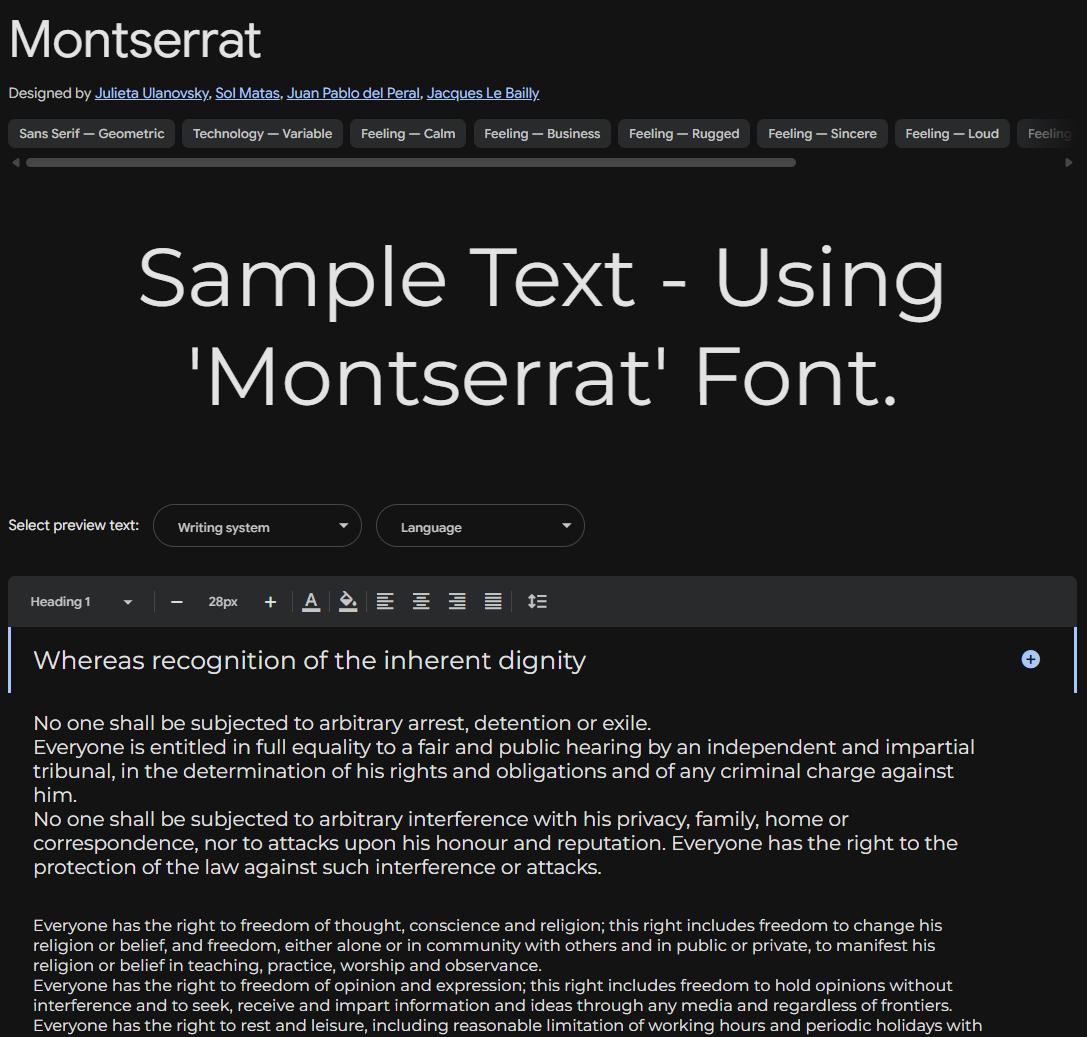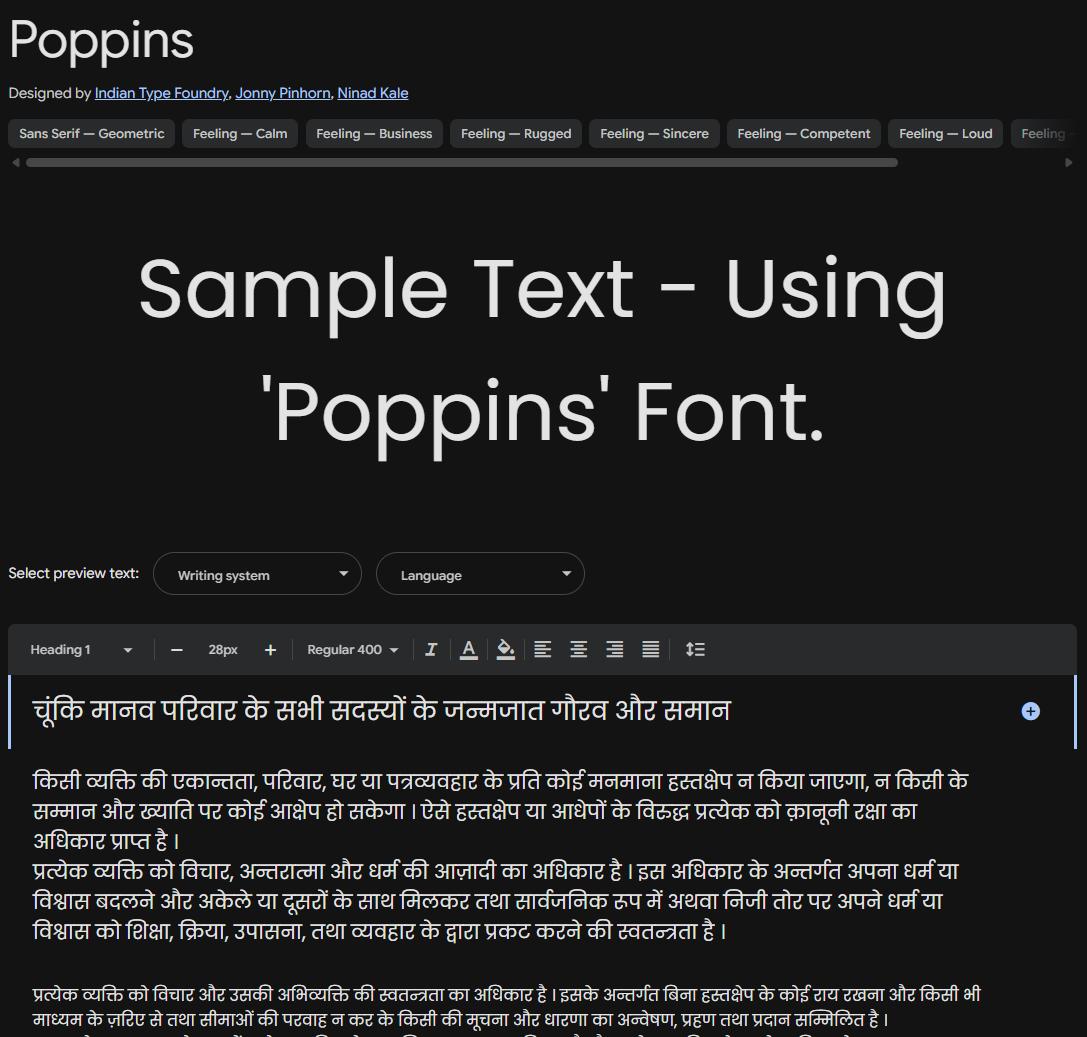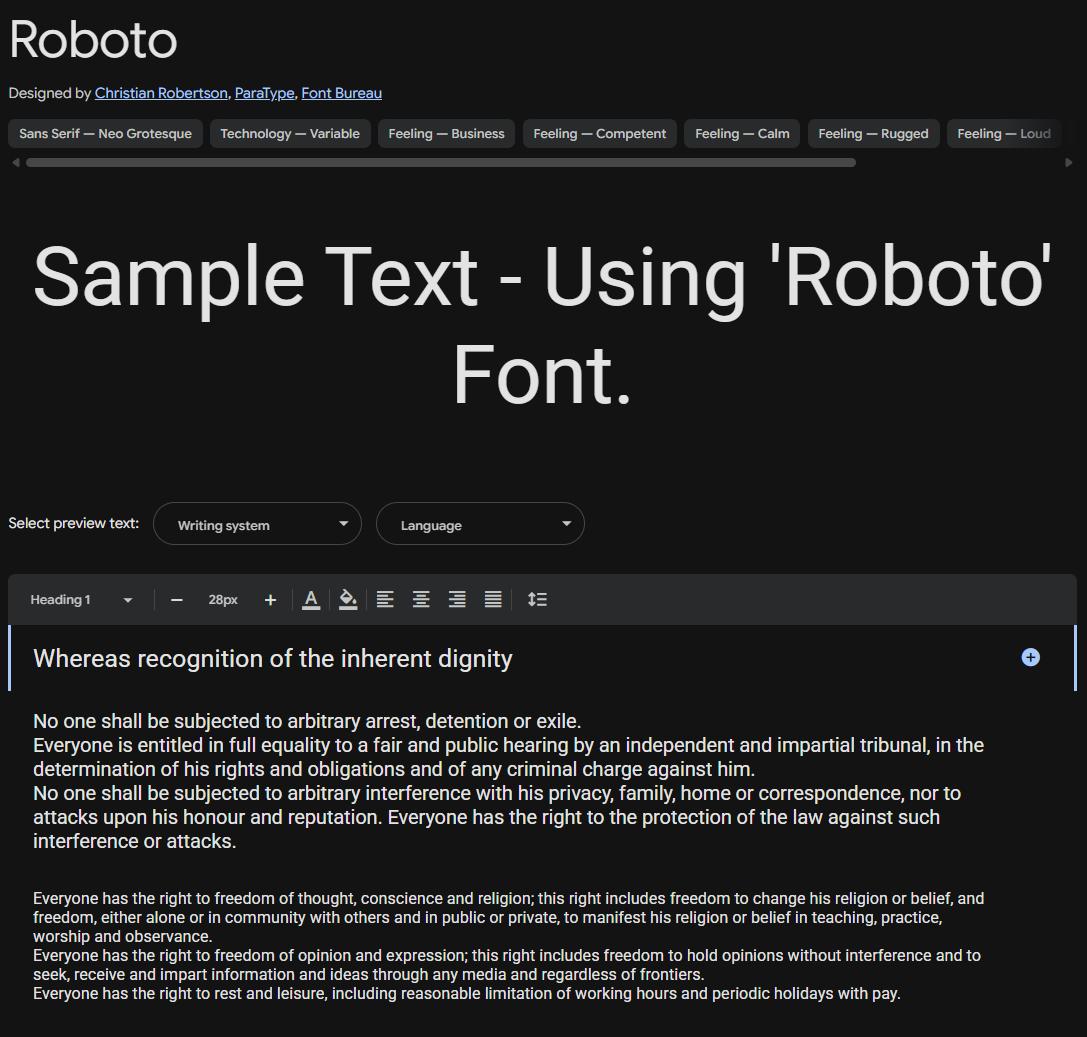
The Roboto typeface, initially conceptualized by Christian Robertson, represents a pinnacle of digital-first typography that has been refined through the technical expertise of ParaType and Font Bureau to embrace the variable font standard.
Engineered by Steve Matteson to redefine digital legibility, the variable iteration of Open Sans leverages a three-axis design space-comprising weight (wght), width (wdth), and italic (ital)-to transform a classic humanist sans-serif into a high-performance typographic engine.
Google Sans functions as the structural bedrock of Google's Material You design language, evolving beyond its geometric lineage into a high-performance variable font that leverages four distinct axes-weight, width, optical size, and grade-to master the complexities of modern screen density.
Engineered by Rasmus Andersson to redefine screen legibility, the Inter variable font family leverages a sophisticated three-axis design space-Weight (wght), Slant (slnt), and Italic (ital)-to provide a fluid typographic continuum that optimizes the bit-map rasterization of glyphs at small sizes.
Montserrat transcends its origins as a vernacular tribute to Buenos Aires signage, evolving under the stewardship of Julieta Ulanovsky, Sol Matas, Juan Pablo del Peral, and Jacques Le Bailly into a sophisticated OpenType variable font that defines modern geometric sans-serif standards.
Poppins, an influential geometric sans-serif released by the Indian Type Foundry and masterfully designed by Jonny Pinhorn and Ninad Kale, comprises eighteen versatile styles that achieve a rare structural equilibrium between Latin and Devanagari scripts.
Engineered by Ćukasz Dziedzic, the Lato typeface family serves as a seminal example of humanist sans-serif architecture, meticulously structured across 10 core styles that range from delicate hairlines to robust black weights.
Designed by Steve Matteson as a high-performance, metrically compatible alternative to Arial, Arimo stands as a cornerstone of modern digital typography, now enhanced by the technological efficiency of the variable font format.
Engineered by Christian Robertson as a high-performance extension of the Material Design ecosystem, Roboto Condensed leverages a variable font architecture-specifically interpolating across weight and width axes-to achieve surgical precision in information density and layout economy.
Christian Robertson's Roboto Mono transcends its utilitarian origins as a programming typeface by leveraging variable font technology through two distinct interpolation axes-weight and slant-to optimize legibility within high-density code environments.